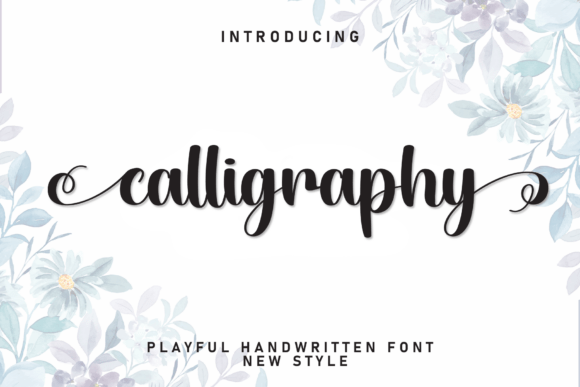
The Magic of Calligraphy Font: Elevate Your Designs with Elegance and Playfulness
I’ll never forget the moment I stumbled upon the perfect font for a client’s wedding invitation project. I had been searching for what felt like hours, trying out different fonts, but none seemed to capture the right balance of elegance and playfulness. That was until I discovered the Calligraphy font. With its thick, confident downstrokes and whimsical, thin flourishes, it brought a bouncy, energetic rhythm to my design that instantly elevated the entire project.
As a designer, I’m always on the lookout for fonts that can bring a unique touch to my projects. Here’s my honest review of the Calligraphy font:
- ✨ The perfect blend of elegance and playfulness, making it suitable for a wide range of design projects.
- ✅ Thick, confident downstrokes that add a sense of sophistication and refinement.
- 🌟 Whimsical, thin flourishes that add a touch of personality and whimsy to any design.
- 🤔 Some users may find the font’s bouncy rhythm too playful for certain projects, such as corporate branding or formal events.
- ⚠️ The font’s intricate details and flourishes may not display well at very small font sizes.
- Experiment with the font’s OpenType features, such as stylistic alternates and glyphs, to add more personality to your design.
The Designer Inspiration Behind Calligraphy Font
The Calligraphy font was inspired by the art of traditional ink-work, with its elegant flourishes and refined letterforms. However, the designer wanted to add a modern twist to this classic style, infusing it with a playful and youthful energy. The result is a font that’s both elegant and fun, perfect for designers who want to add a touch of personality to their projects.
| What is the Calligraphy font best suited for? | The Calligraphy font is perfect for birthday invitations, boutique branding, social media quotes, and any project that needs a touch of elegance and playfulness. |
| Is the Calligraphy font available in different styles or weights? | Currently, the Calligraphy font is available in a single style, but the designer may release additional styles or weights in the future. |